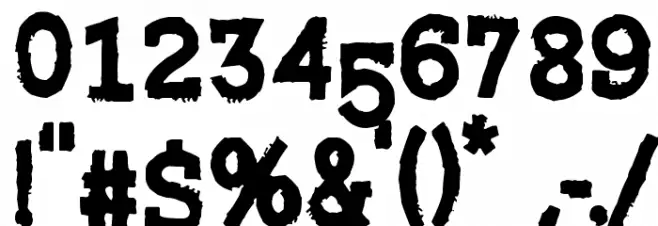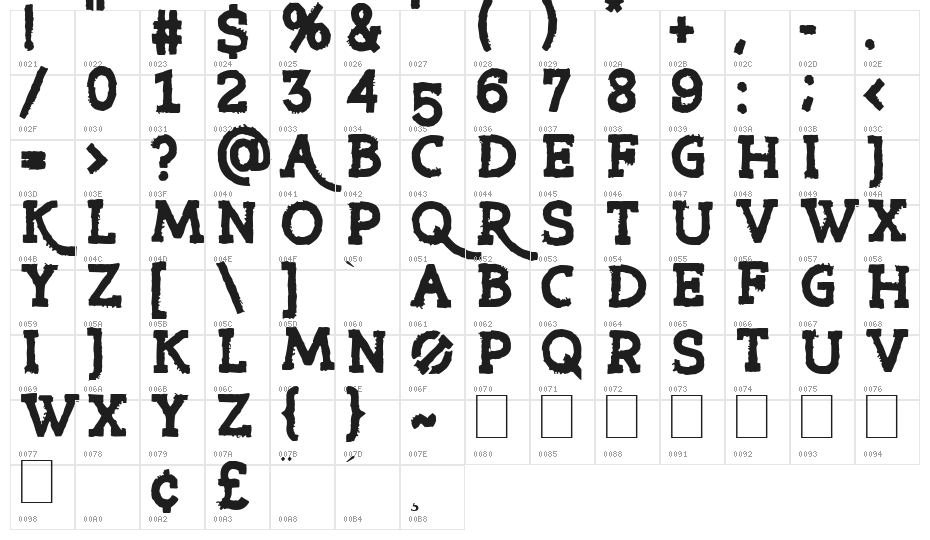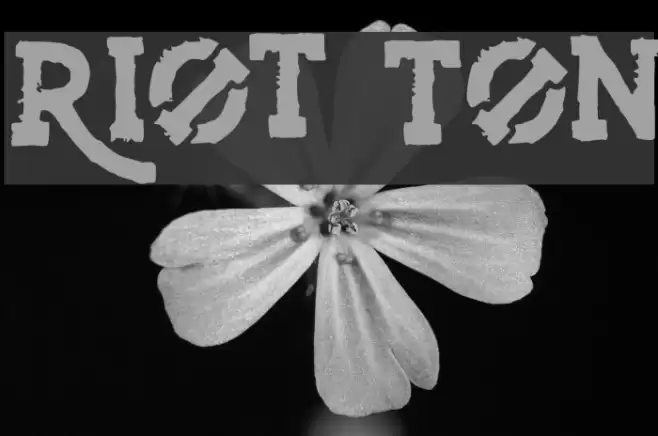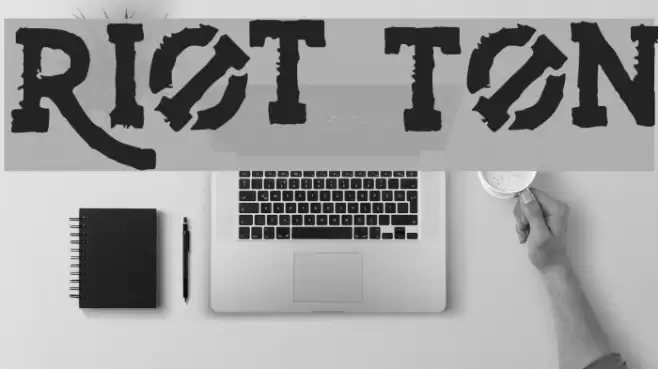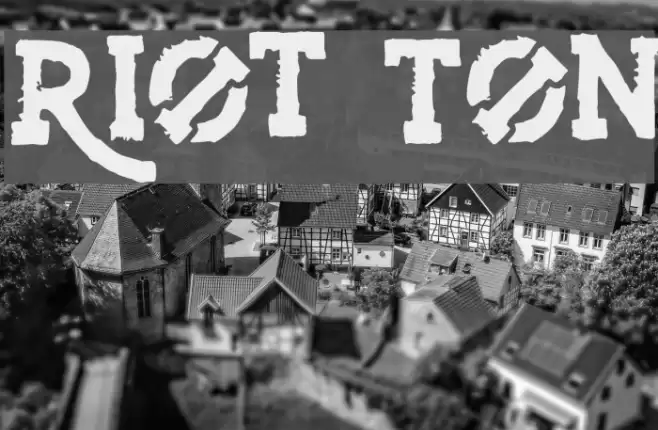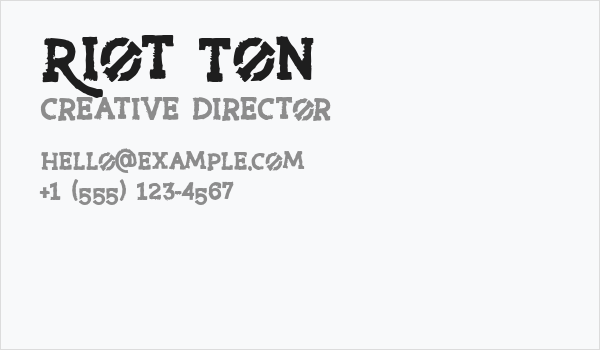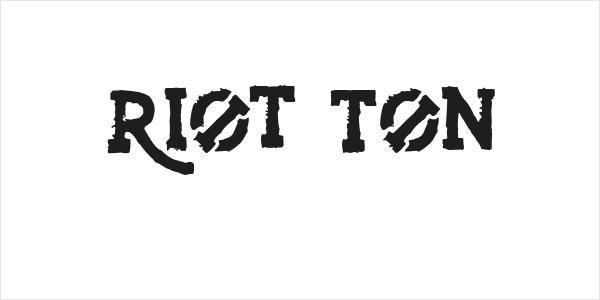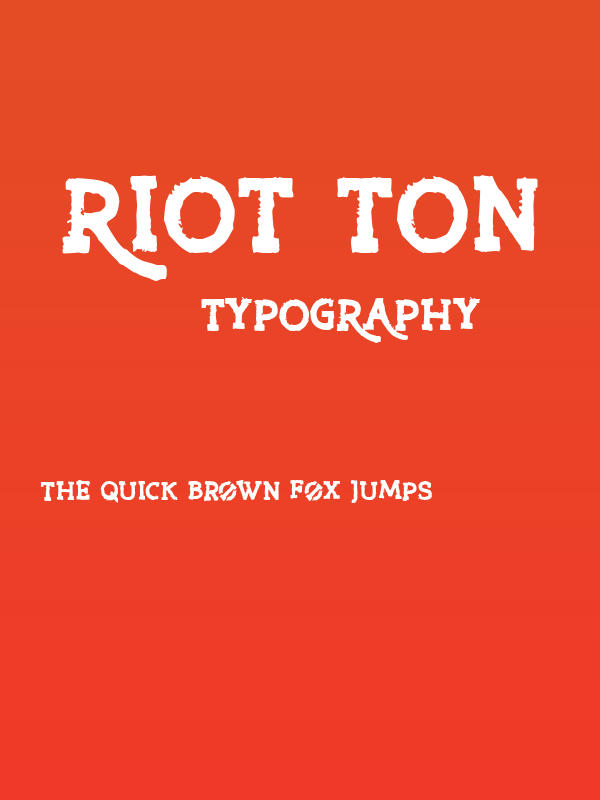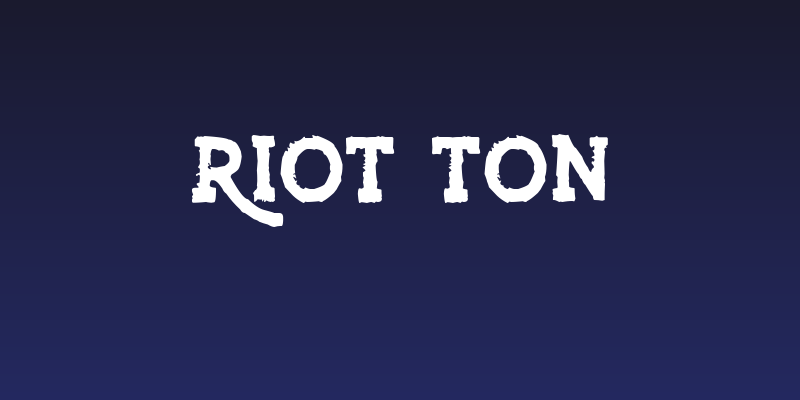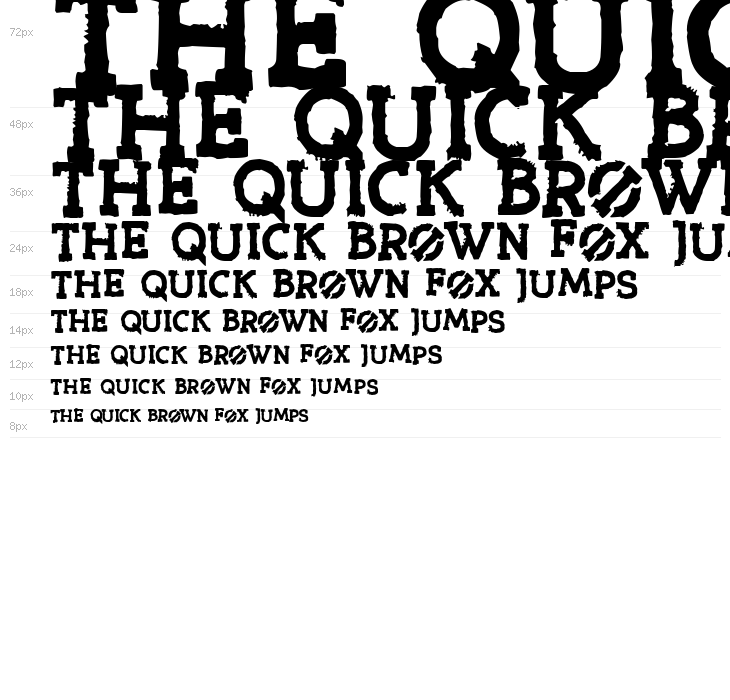
Riot Ton Font
Riot Ton Description
This font features a bold and rugged design with a distressed texture that gives it a rebellious and edgy appearance. The characters are thick and slightly irregular, with rough edges that suggest a hand-crafted or grunge style. The uppercase letters are particularly striking, with some characters incorporating unique elements, such as slashes or additional strokes, adding to the font's dynamic and energetic feel. The numbers and special characters maintain this bold and textured style, ensuring consistency across all glyphs.
| Overall Style | Grunge, Edgy, Rebellious |
| Proposed Projects | Ideal for music album covers, posters, streetwear branding, and any project requiring a bold, edgy statement. |